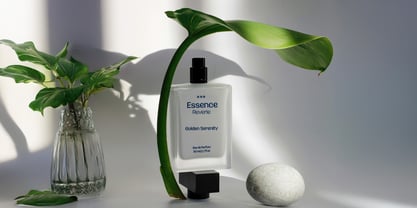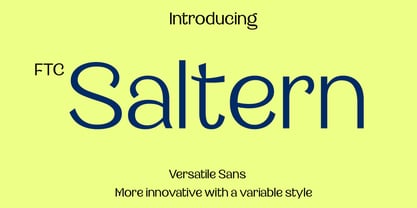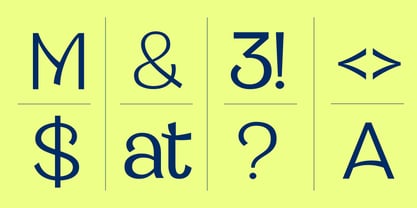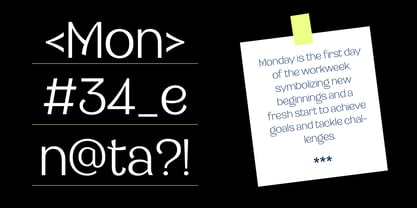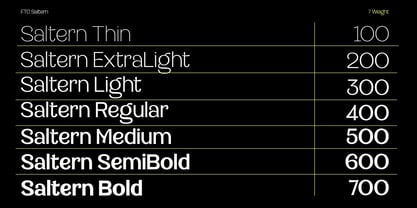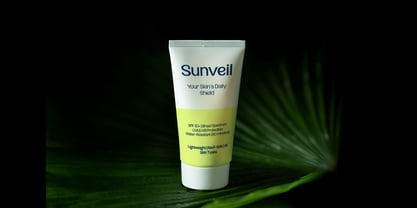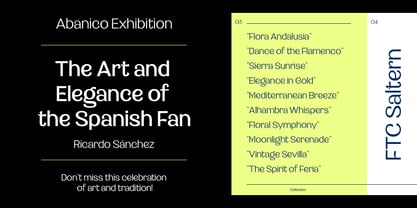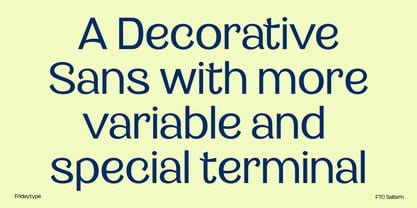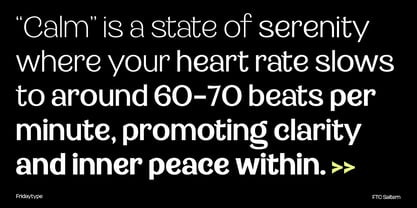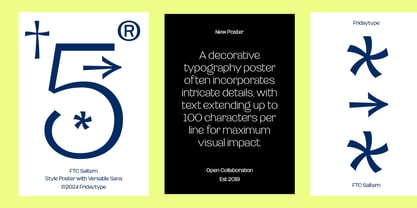
Saltern
by Fridaytype
The Saltern Font Family was designed by Farida Kurniawan and published by Fridaytype. Saltern contains 7 styles and family package options.
Saltern is a versatile font featuring unique special terminals and a variable design that allows for diverse font weights, creating a harmonious balance between calmness and dynamism. Its adaptable nature makes it ideal for branding, editorial projects, and headlines, offering a refined yet modern aesthetic. With its distinctive style, Saltern ensures exceptional readability and visual appeal, making it an excellent choice for projects that demand both elegance and flexibility.
Feature:
• Lowercase Uppercase
• Numbers & punctuation
• International characters (Multilingual)
• More Arrow
• OpenType Features
• Variable Formats